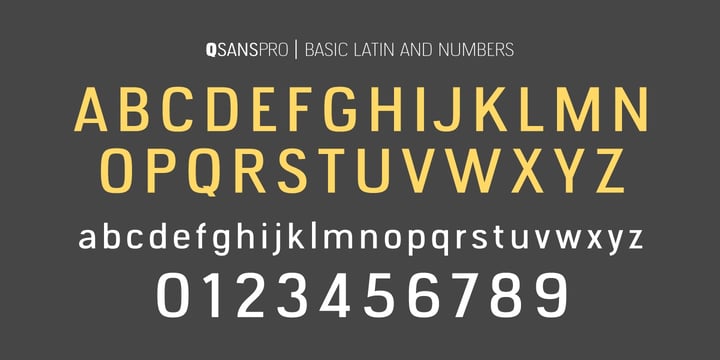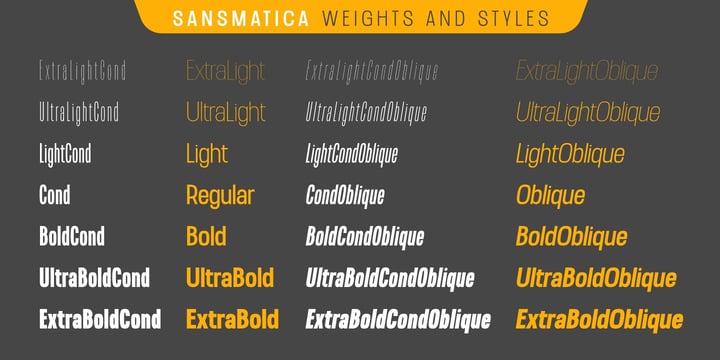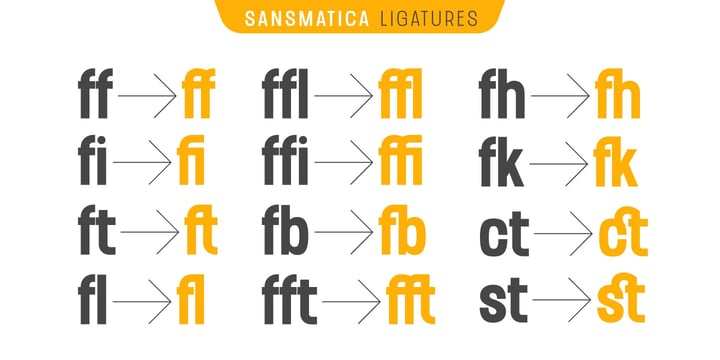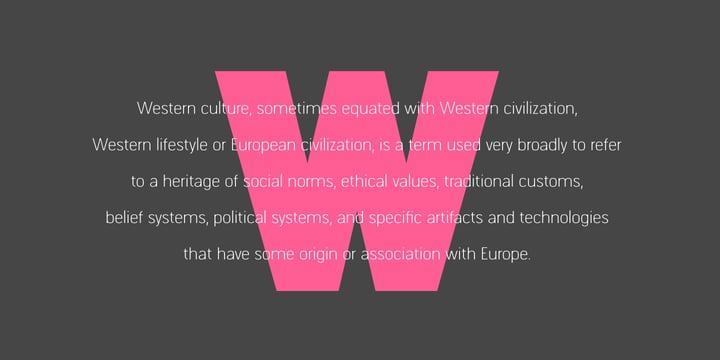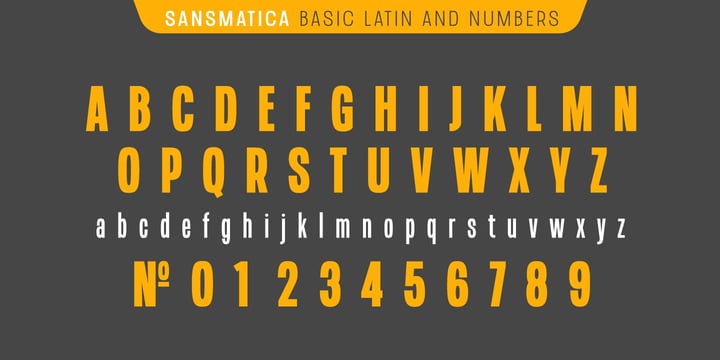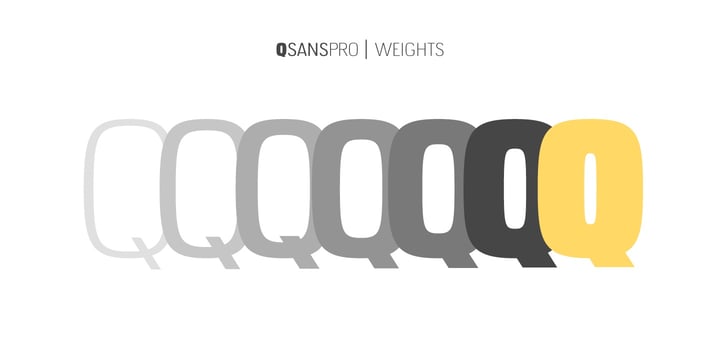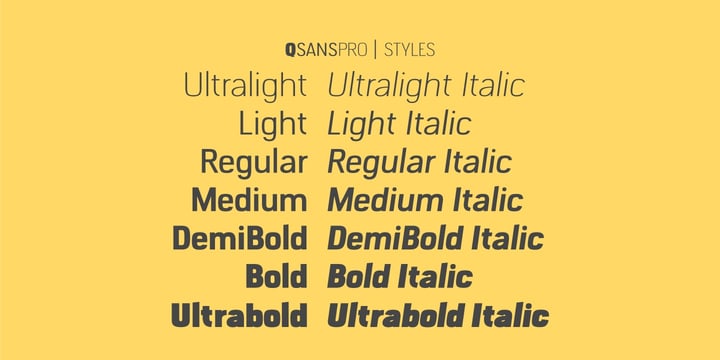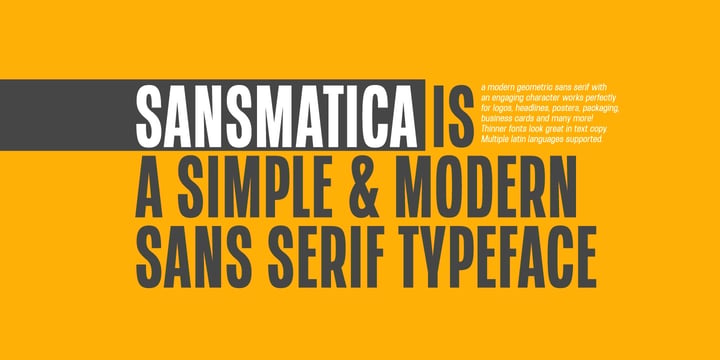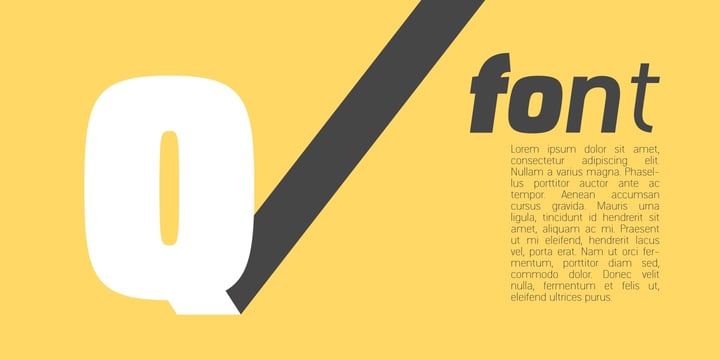
Solo Sans Duo
Solo Sans Duo is a curated bundle of two tall modern sans serif typefaces designed for independent use. Each font brings its own distinct personality, offering clean lines, contemporary proportions, and strong vertical presence.
Rather than pairing together, these typefaces are made to stand on their own — perfect for branding, editorial layouts, posters, and minimalist design where a single voice makes the strongest impact.
A versatile set for designers who want flexibility, clarity, and bold simplicity in their typography.
Solo Sans Duo is a curated bundle of two tall modern sans serif typefaces designed for independent use. Each font brings its own distinct personality, offering clean lines, contemporary proportions, and strong vertical presence.
Rather than pairing together, these typefaces are made to stand on their own — perfect for branding, editorial layouts, posters, and minimalist design where a single voice makes the strongest impact.
A versatile set for designers who want flexibility, clarity, and bold simplicity in their typography.